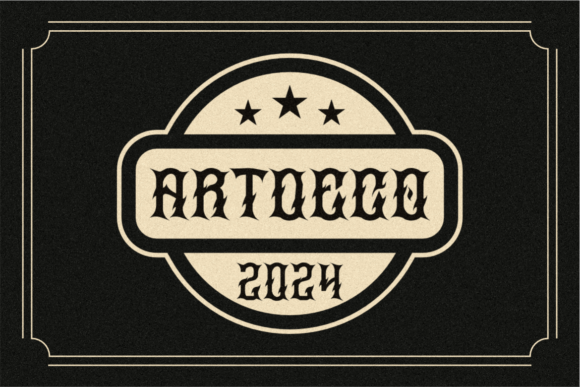
Black letter Font / FontsThe Sragoz America Font Download 26/02/202527/02/2025 - by Awais Farooq Sragoz America is a bold and thick lettered blackletter font. Add it confidently to your projects, and you will love the results. This font is PUA encoded which means you can access all of the glyphs and swashes with ease. Related Posts:The Trending Love Bubble FontPaper Tube Mockup Set Download Spooky Halloween Clipart Spooky PNG DownloadThe Funny Christmas Animal Christmas PNG Sunday Eighties Font Download Best Sallfrog Font Download Latest Timelapse FontTarot Breades Font DownloadActions American Font Bohemian Dreams FontI Put the Boo in Boujee,Girly HalloweenRagikon - Playful & Chunky FontThe Vintage Christmas Label SublimationThis is Berlishanty Calligraphy FontThe Best Bubble Font